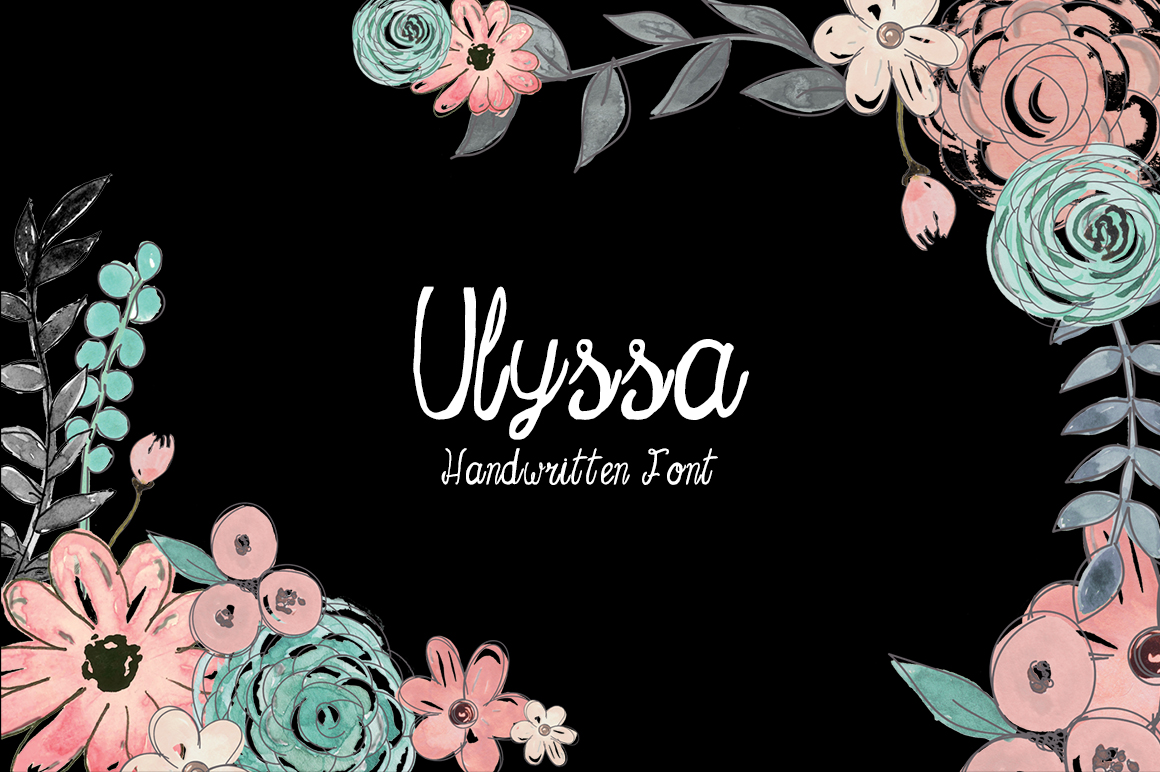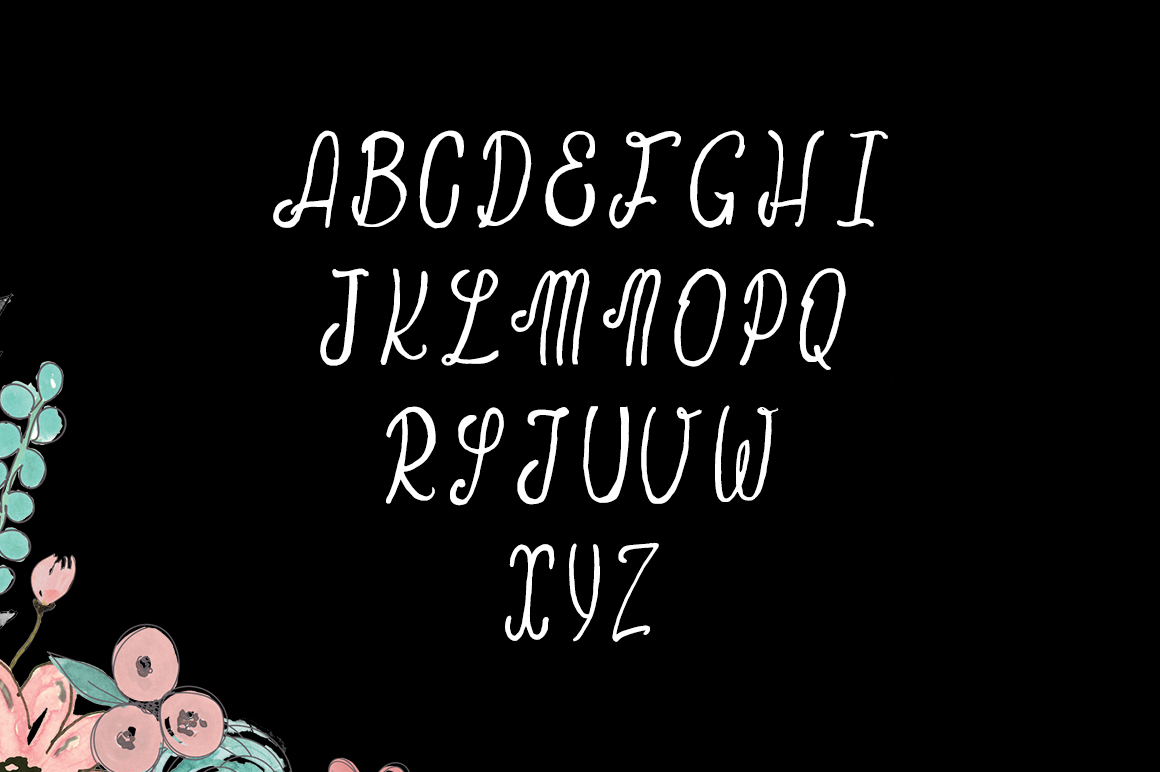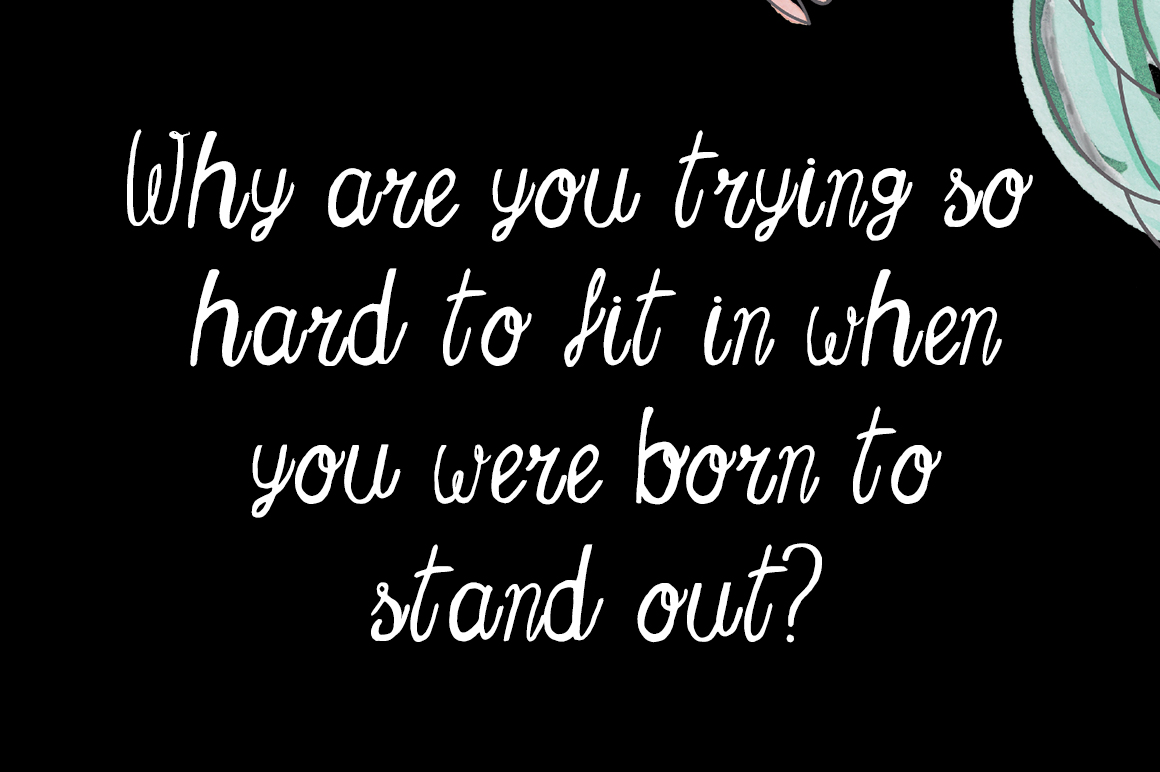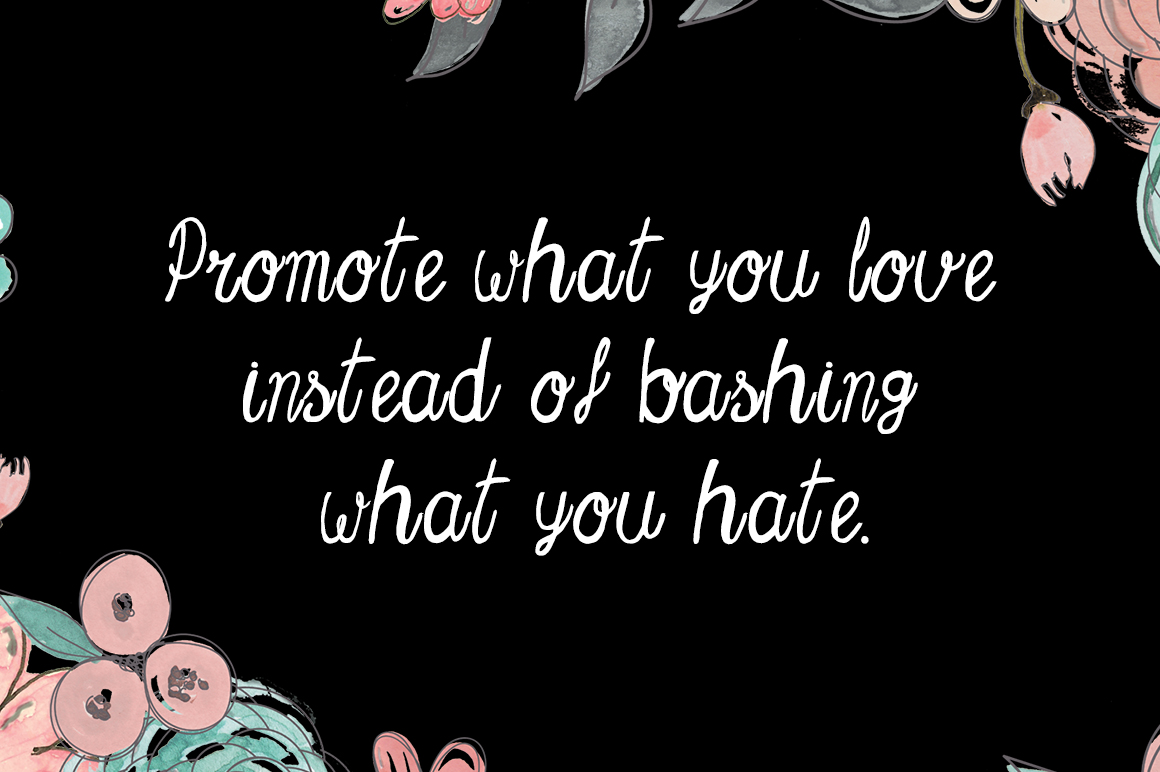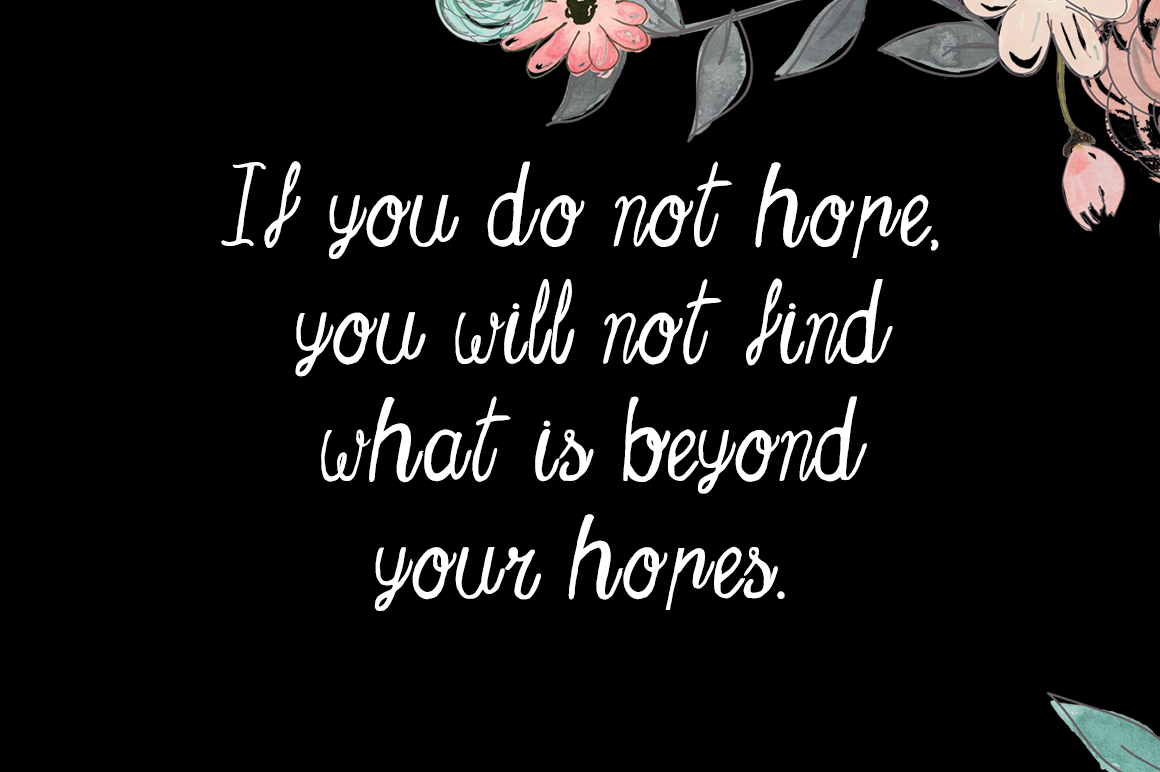
Ulyssa Font
Ulyssa is a stylish contemporary handwritten font, with a unique flow and style makes it perfect to use for a large range of projects and designs. This script is gorgeous standalone or in combination with other fonts.